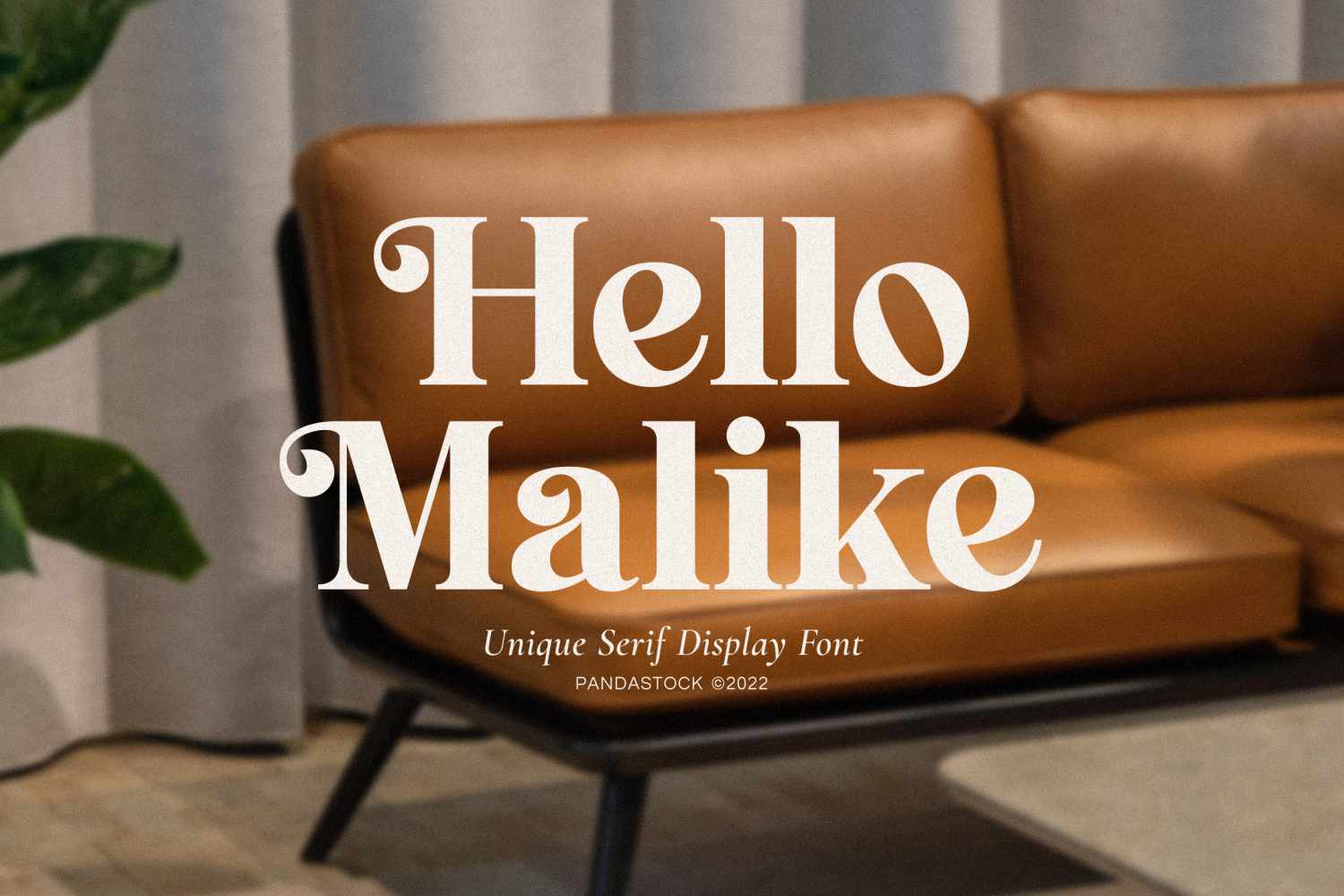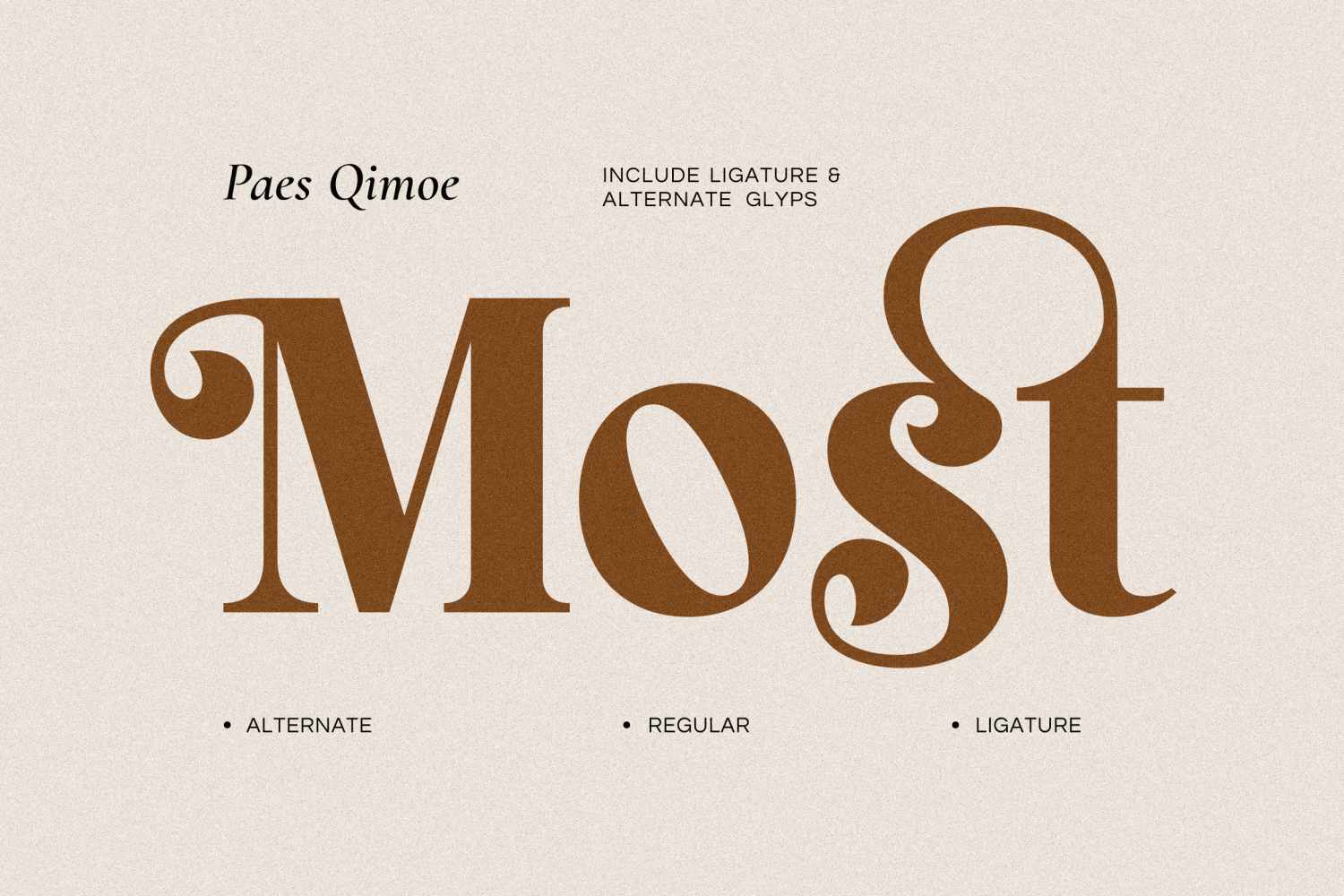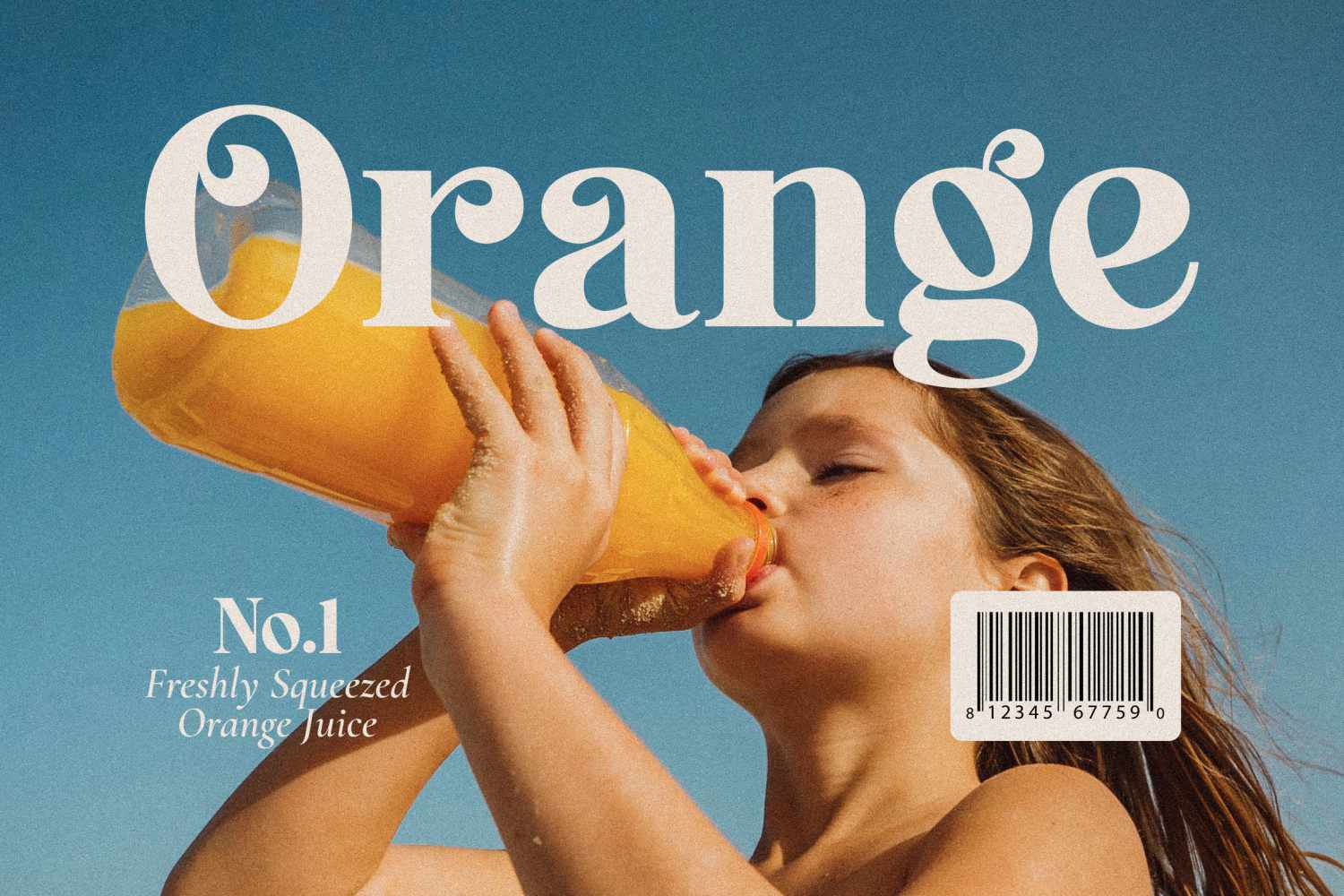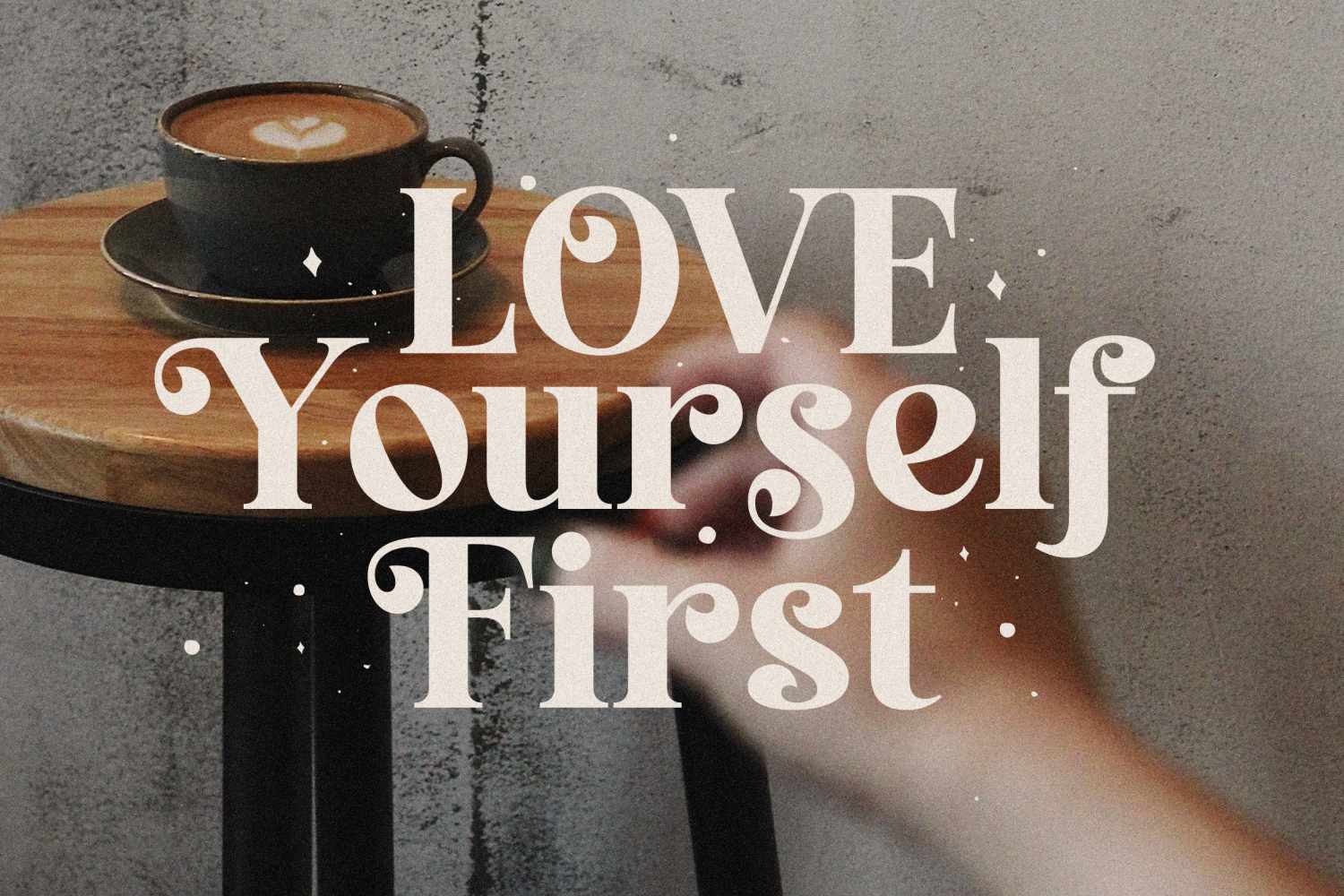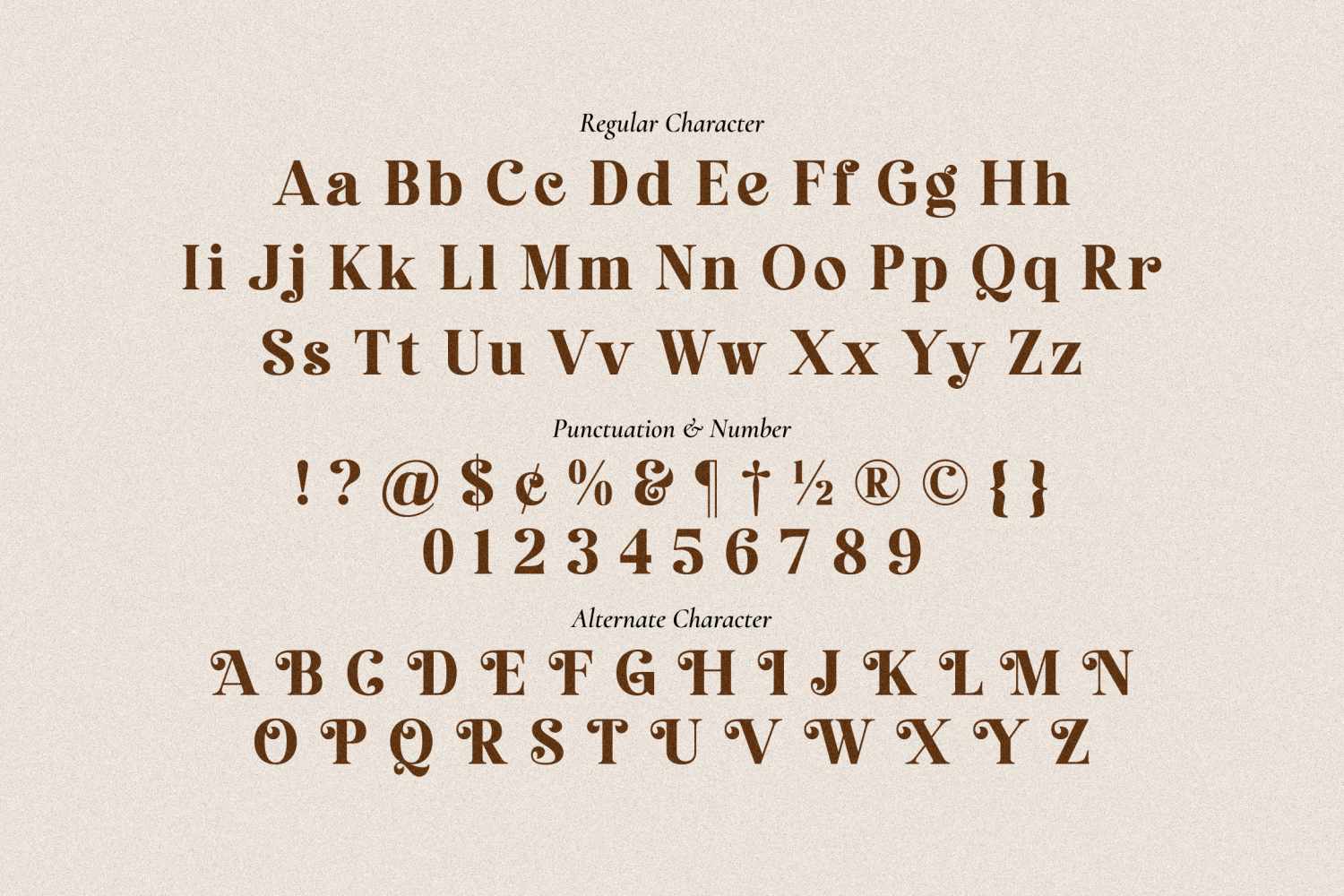
Hello Malike
Hello Malike is a charming serif display font that combines bold letterforms with playful decorative details. Its stylish swashes and unique alternates create a delightful balance between elegance and creativity, making it perfect for logos, packaging, posters, and editorial projects. With its retro-inspired curves and modern readability, this font brings warmth and personality to any design.
Equipped with ligatures, alternate characters, and multilingual support, Hello Malike offers versatility for a wide range of creative needs. Whether used for branding, product labels, or inspiring quotes, this font enhances your design with a distinctive character that feels both vintage and fresh.